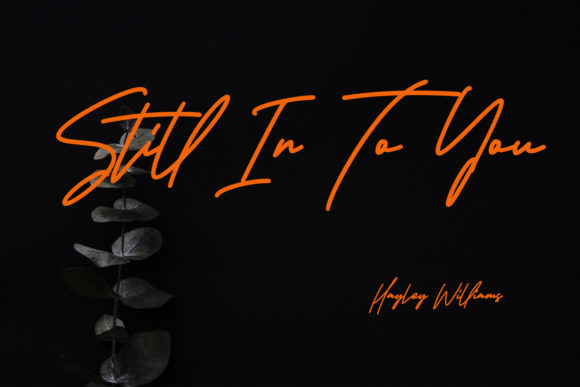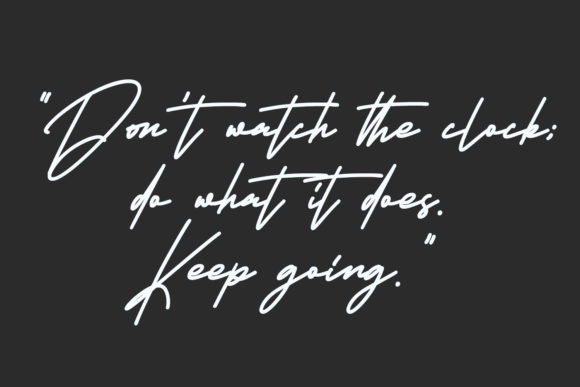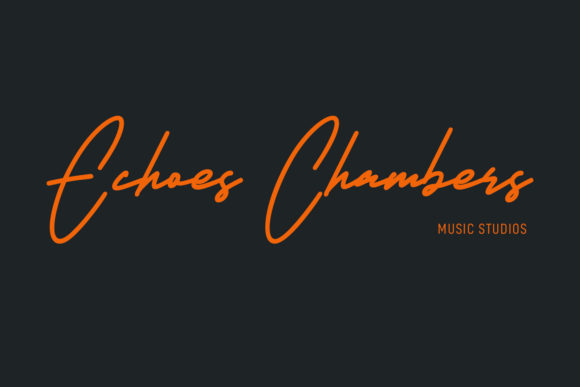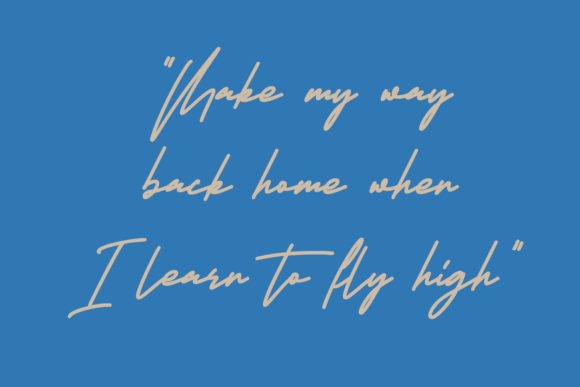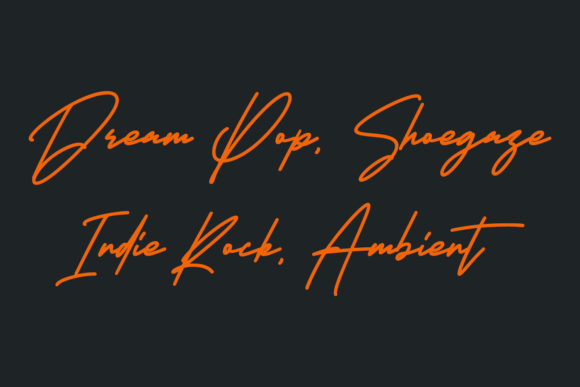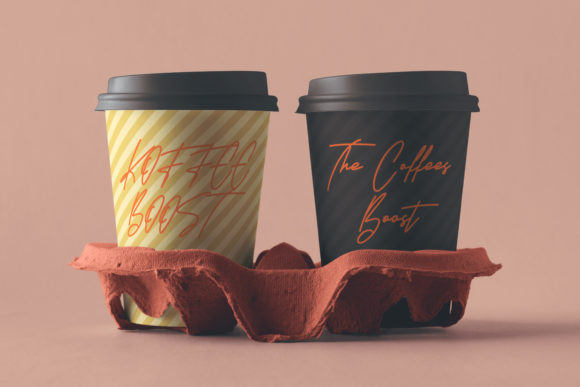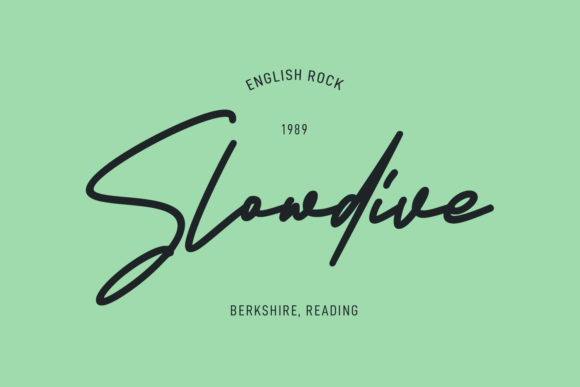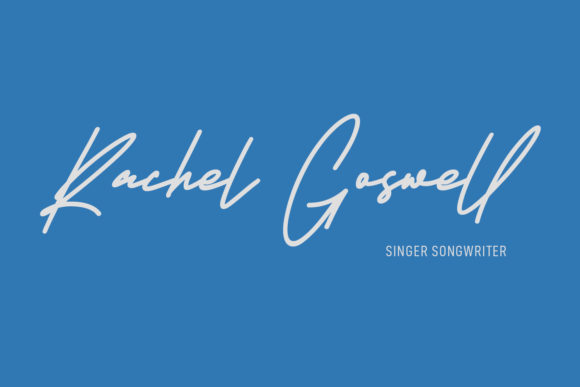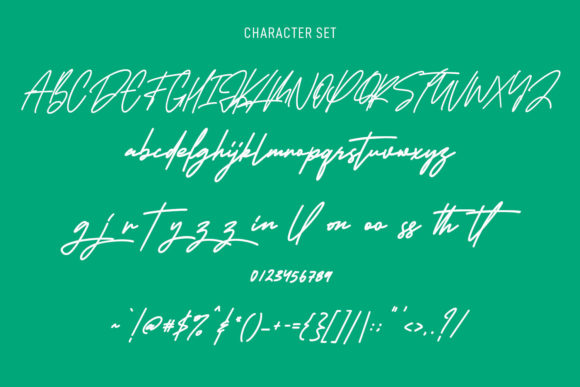
Hollestik Signature Font
About Hollestik Signature Font
Hollestik Signature is a casual and thin lettered script font. This font was particularly crafted for those who need a beautiful and refreshing look to their designs.